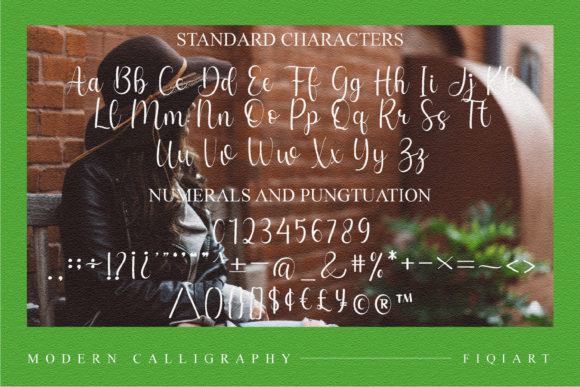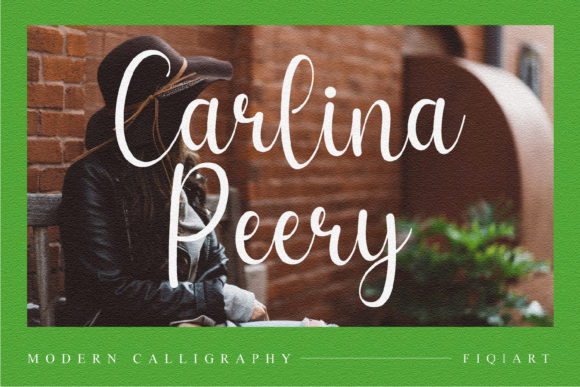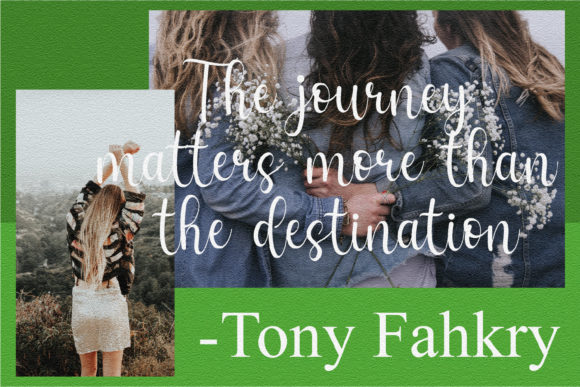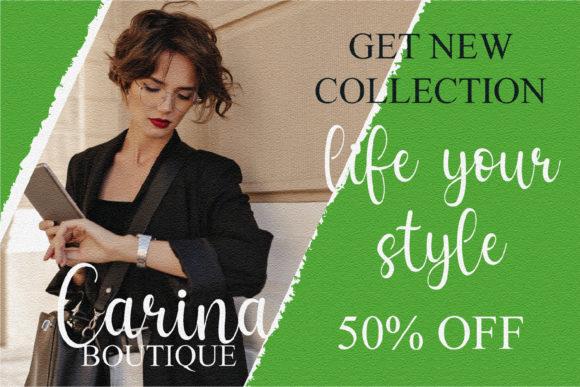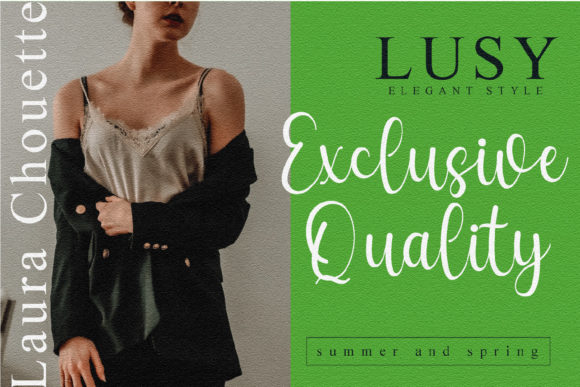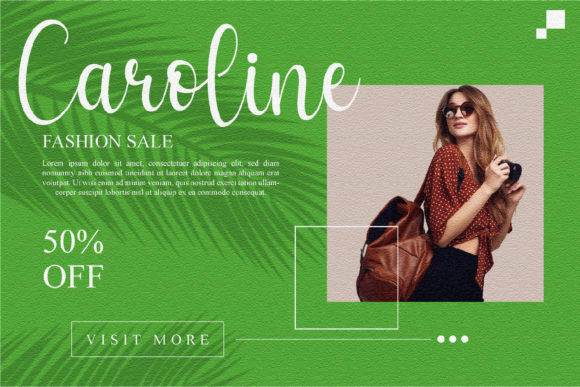
Discover the Elegance of Carlina Peery Font: Elevate Your Designs with Precision and Style
In the vast universe of typography, certain fonts stand out for their unique ability to transform and elevate design projects. Among these, the Carlina Peery font emerges as a dazzling script font that captures the essence of elegance and precision. Neatly crafted and highly detailed, Carlina Peery is not just a font; it’s an asset that can significantly enhance any creation, regardless of the topic or theme. In this article, we’ll delve into the characteristics, uses, and benefits of incorporating Carlina Peery into your font library, and why it should be a staple for designers and crafters alike.
The Artistry of Carlina Peery
Carlina Peery is a script font that exudes sophistication. Its design is a testament to meticulous craftsmanship, with each letterform carefully constructed to convey a sense of fluidity and grace. The font’s neat and detailed features make it versatile, suitable for a wide range of applications, from elegant branding and advertising to beautiful stationery and digital content.
Key Features of Carlina Peery Font
- Elegant Script Style: Carlina Peery boasts a beautiful script style that can add a touch of sophistication to any project.
- Highly Detailed: The font’s high level of detail ensures that it remains legible and impactful, even at smaller sizes.
- Versatility: Its elegant and clear design makes it suitable for a variety of projects, including logos, headings, and more.
- Easy to Read: Despite its elegant nature, Carlina Peery maintains a high level of readability, making it perfect for both digital and print media.
Applications of Carlina Peery
The versatility of Carlina Peery font makes it an excellent choice for various design projects. Here are some of the areas where Carlina Peery truly shines:
- Branding and Logos: Create a lasting impression with a logo that embodies elegance and sophistication.
- Stationery and Invitations: Add a touch of class to your cards, invitations, and letterheads.
- Digital Content: Enhance your website, blog, or social media graphics with a font that stands out.
- Advertising and Marketing: Use Carlina Peery in your ad campaigns to convey luxury and premium quality.
- Packaging: Make your product packaging more appealing with an elegant and eye-catching font.
Benefits of Using Carlina Peery
Incorporating Carlina Peery into your design projects comes with several benefits:
- Unique Aesthetic: Stand out from the crowd with a font that offers a distinctive look.
- Time-Saving: Its versatility means you can use it across various projects, reducing the need to search for different fonts.
- Professionalism: Elevate your designs to a professional level with a font that exudes quality and elegance.
- Emotional Connection: The elegant nature of Carlina Peery can help create an emotional connection with your audience, making your message more impactful.
Carlina Peery font is a remarkable addition to any designer’s toolkit. Its elegant script style, combined with its precision and detail, makes it a versatile and powerful font for a multitude of projects. Whether you’re a professional designer or a crafter, Carlina Peery has the potential to elevate your creations, making them more engaging, sophisticated, and memorable. By incorporating Carlina Peery into your font library, you’re not just adding a font; you’re investing in the quality and impact of your designs. So, why settle for ordinary when you can create something extraordinary with Carlina Peery?